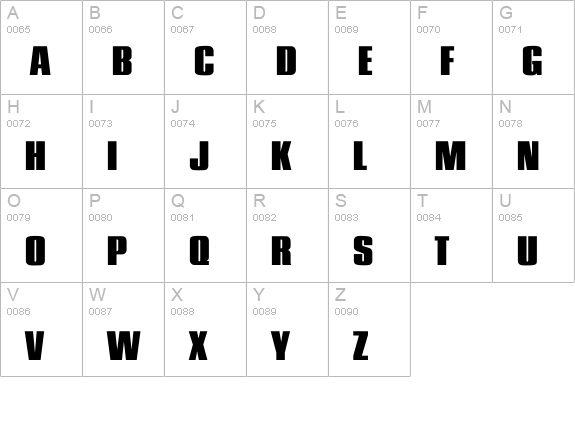
Plakat Heavy Font Details
Plakat Heavy is a heavy, high-impact variant in the Plakat typeface family \xE2\x80\x94 well suited to high-impact headlines, posters, and display advertising.
Plakat Heavy is a bold and impactful font that commands attention with its strong and sturdy letterforms. Inspired by the simplicity and clarity of vintage poster designs, this typeface exudes a sense of power and confidence. Featuring clean lines and sharp edges, Plakat Heavy is perfect for making a statement in headlines, titles, or any design project that requires a touch of boldness. Its thick strokes and bold presence make it ideal for creating eye-catching logos, signage, and branding materials that leave a lasting impression. With Plakat Heavy, you can effortlessly convey a sense of authority and strength in your designs. Whether you're working on a modern advertising campaign, a vintage-inspired poster, or a contemporary branding project, this font will add a touch of bold elegance to your work. What's even better is that Plakat Heavy is available for free download at FontsMarket.com. You can easily access this powerful and versatile font and use it in your personal or commercial projects without any restrictions. Its availability as a free font makes it a valuable asset for designers, allowing them to create impactful designs without breaking the bank. So, if you're looking for a font that combines the classic charm of vintage posters with a modern twist, Plakat Heavy is the perfect choice. Download it for free at FontsMarket.com and let your designs speak volumes with its bold and captivating presence.